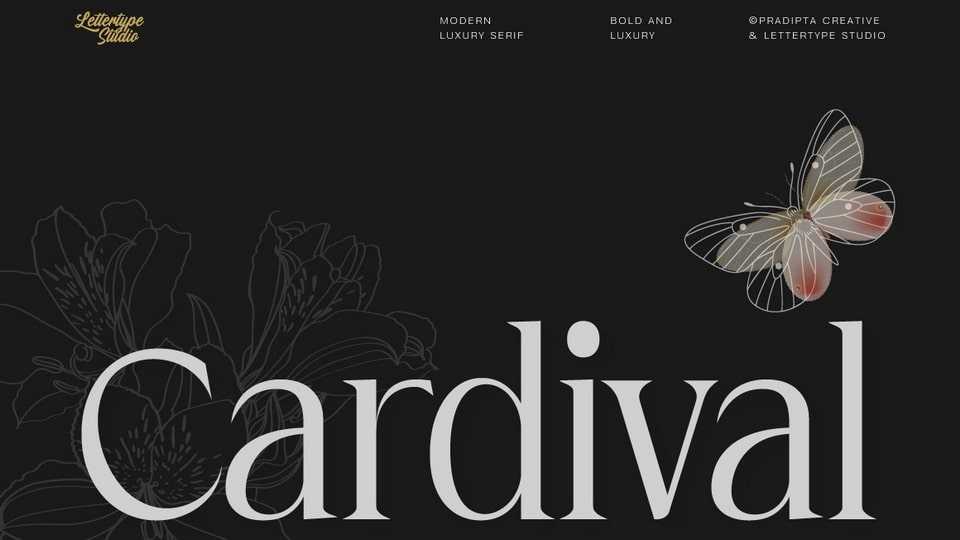
Download Cardival font, a striking serif typeface that combines boldness with modern luxury designed with clean lines, sharp contrasts, and elegant curves.
Designer: Lettertype Studio